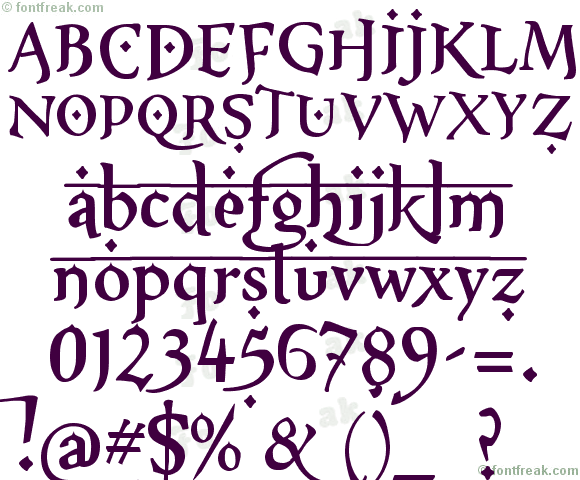
About XXII ARABIAN-ONENIGHTSTAND Bold
XXII ARABIAN-ONENIGHTSTAND Bold by Lecter Johnson is a distinctive decorative font that captures a whimsical and exotic aesthetic. This font, characterized by its ornate stroke weight and playful curves, stands out with its unique blend of boldness and elegance. The letters possess a moderate contrast, providing a sense of movement and flair, while the spacing is carefully balanced to ensure legibility, making it suitable for various creative applications. The decorative elements, including stylized serifs and exaggerated features, evoke a sense of cultural richness, reminiscent of traditional Middle Eastern typography.
This font is ideal for a range of creative projects. It shines in wedding invitations, where its romantic and artistic flair adds a personalized touch. Movie posters can benefit from its eye-catching style, drawing attention and creating intrigue. Additionally, restaurant menus that seek to convey a unique dining experience can utilize this font to enhance their branding. It also makes a memorable choice for event flyers and promotional materials, where grabbing attention is crucial. The target audience for XXII ARABIAN-ONENIGHTSTAND Bold includes graphic designers looking to add character to their work, small business owners aiming to differentiate their branding, and content creators in search of distinctive typography.